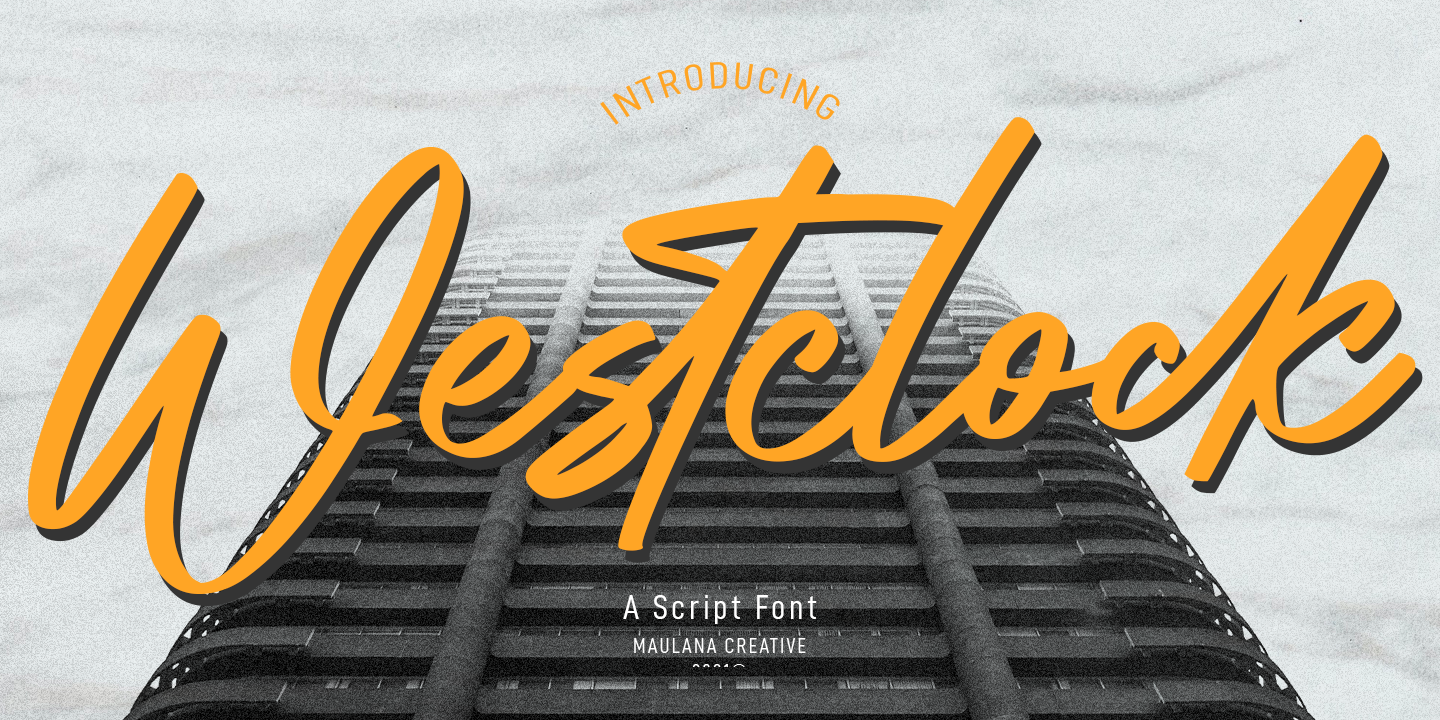
Westclock Font is an exceptional choice for projects that demand a sense of retro charm, vintage appeal, and nostalgic authenticity. It's perfectly suited for classic branding, album covers, movie posters, historical document reproductions, and packaging design that aims to evoke a bygone era. Its distinct character makes it ideal for capturing the essence of the past.
What makes Westclock Font so exciting is its remarkable ability to transport viewers back in time. It perfectly captures the aesthetic of vintage clock faces and industrial signage, offering a unique blend of ruggedness and intricate detail. This font doesn't just display text; it tells a story, adding a layer of historical depth and character to any design.
The Westclock Font family often includes variations that enhance its utility. You'll typically find Westclock Regular for its primary application, and sometimes a distressed or aged version to further emphasize its vintage quality. These family members allow designers to maintain a consistent theme while adapting the font to different creative needs. For those ready to explore its timeless appeal, Westclock Font Free Download offers a fantastic opportunity to see its capabilities firsthand.